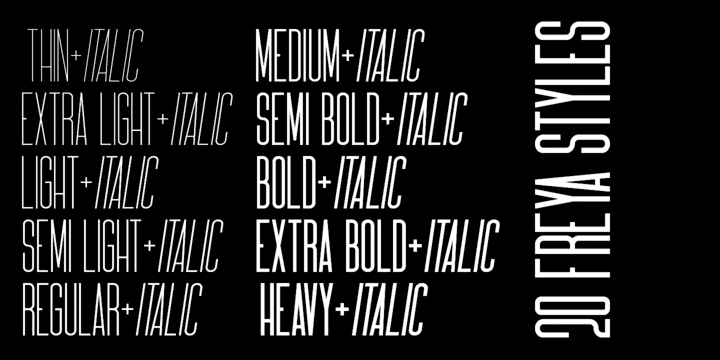
Freya is a strong font family and sophisticated sans serif. His firm and uncompromising style are felt through letters that are controlled with a modern touch. Hardline balance and smooth curves. Each font in the family can stand alone, dynamic, and authoritative as they wish. It offers extensive language support, ALL Central & Western European Languages, Vietnamese and African languages.
Freya works very well in all brands, logos, magazines, films. Different weights give you a full range to explore a number of applications, while the fonts described giving a real modern feel to any project.